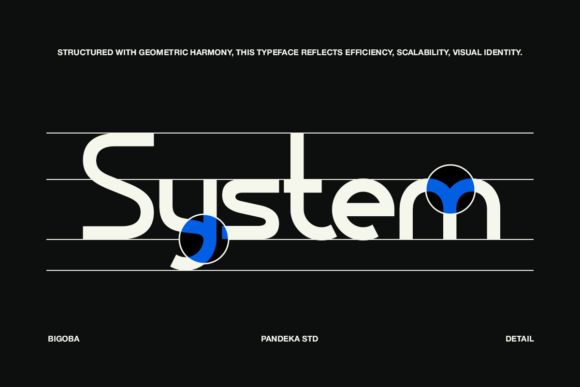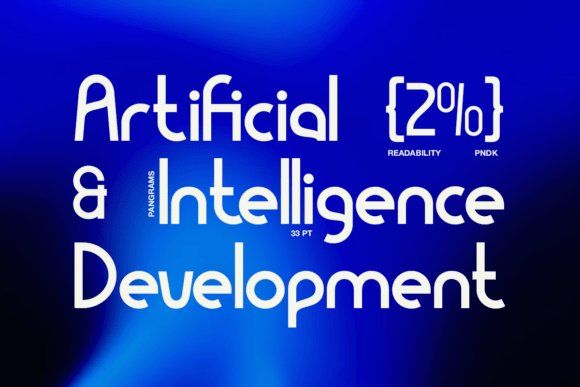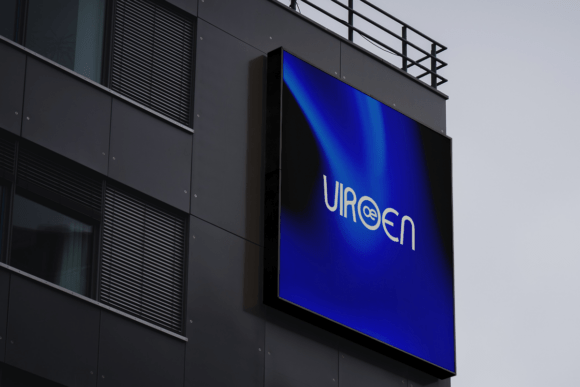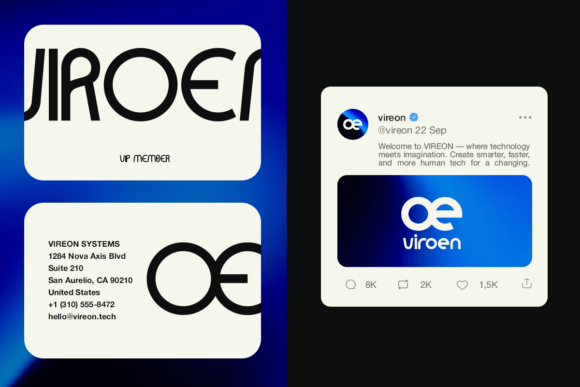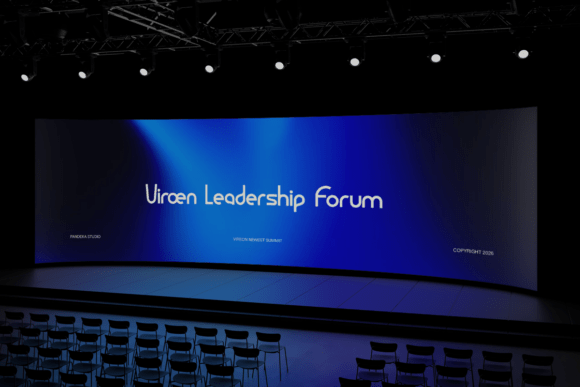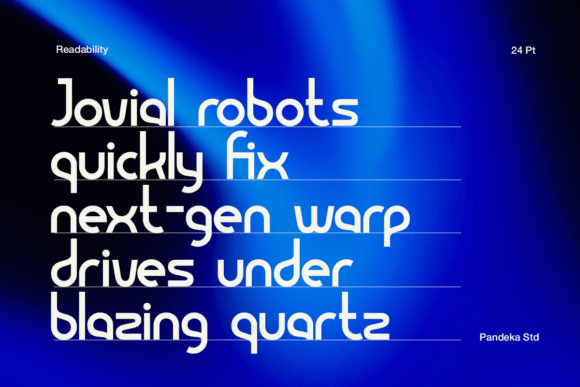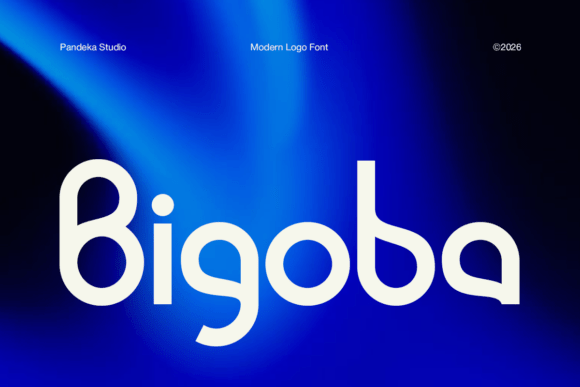
The Bigoba Font: A Modern Marvel for Your Brand
I’ll never forget the struggle of working on a logo design project for a tech startup. The client wanted something modern, sleek, and futuristic, but I was stuck with a font that looked more like a relic from the 90s. That’s when I discovered Bigoba, a game-changing logo font that has since become a staple in my design toolkit. In this article, I’ll share my experience with Bigoba, its features, and how to make the most of it in your designs.
What Makes Bigoba Special?
Bigoba is a modern logo font built with clean geometric shapes and smooth curves, delivering a sleek and futuristic visual identity. Its balanced structure and unique letterforms make it perfect for creating standout logos and strong brand presence in modern and tech-driven industries.
Here’s what I love about Bigoba:
• ✨ Clean and geometric design: Bigoba’s sleek lines and curves make it perfect for modern brands.
• ✅ Unique letterforms: Each letter has a distinct character that sets it apart from other fonts.
• 💻 Versatile: Bigoba works well in various design contexts, from logos to UI/UX.
And here are some minor quirks to consider:
• 🤔 Limited use in traditional contexts: Bigoba might not be the best fit for traditional or serif-heavy designs.
• ⚠️ May require OpenType support: Some features might not work without OpenType support in certain software.
The Story Behind Bigoba
Bigoba was designed with the modern brand in mind. Its creator aimed to craft a font that would embody the sleekness and innovation of tech and digital products. The result is a versatile font that can adapt to various design contexts, from logos to UI/UX.
Q: What makes Bigoba suitable for tech branding?
A: Bigoba’s clean geometric design, unique letterforms, and futuristic feel make it an excellent choice for tech and digital product branding.
Q: Can I use Bigoba for print design?
A: While Bigoba excels in digital contexts, it can also be used in print design, especially for modern and innovative brands.
Q: Does Bigoba support OpenType features?
A: Yes, Bigoba supports OpenType features, including stylistic alternates, ligatures, and more, which can enhance your design work.
Q: Is Bigoba easy to read?
A: Bigoba is designed to be legible and clean, making it suitable for body text and headings, especially in digital contexts.